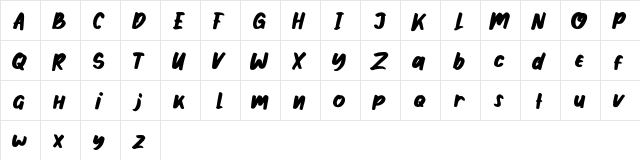
Gibson walsh Regular
Design Context for Gibson walsh Typeface
Gibson walsh is a composed and adaptable typeface that performs quietly and consistently across a wide range of design contexts.